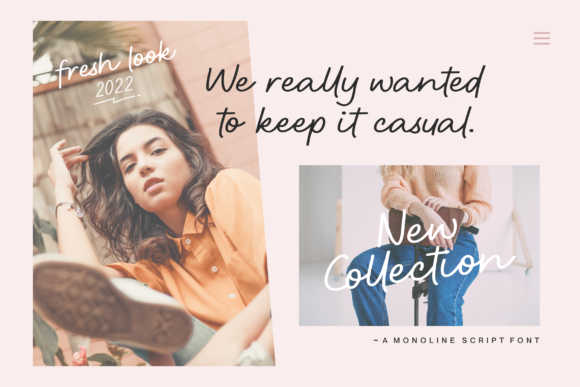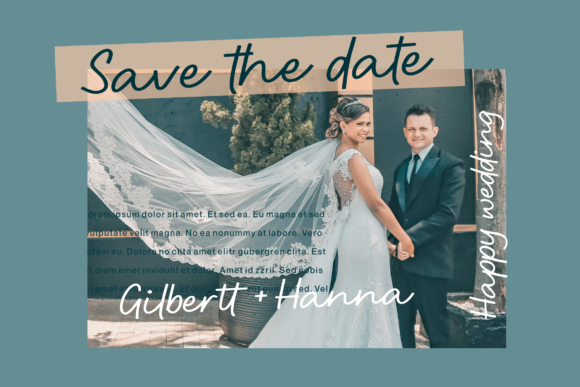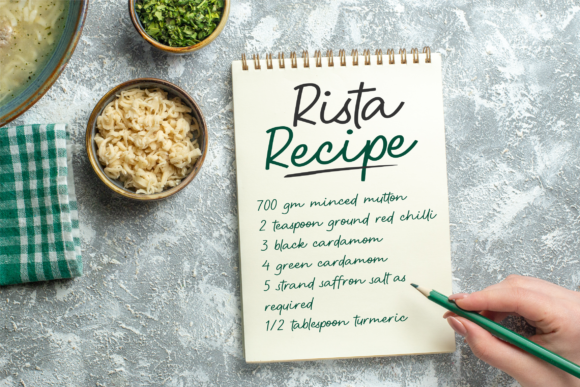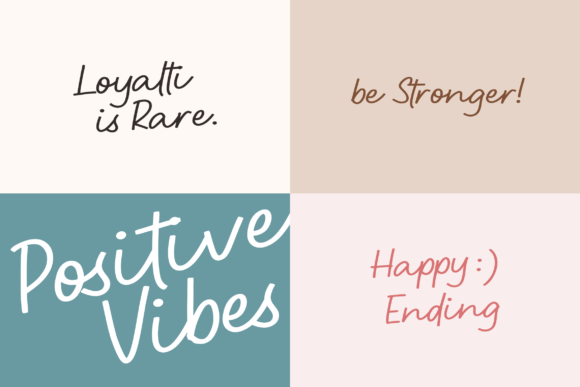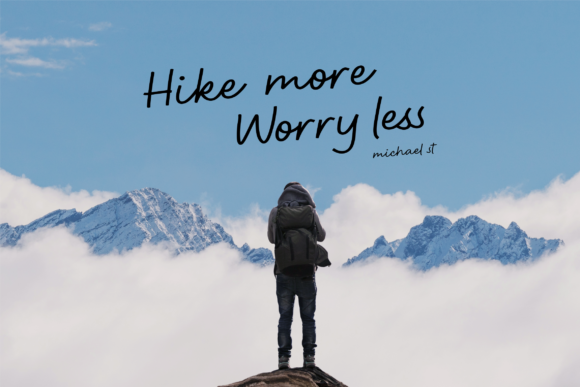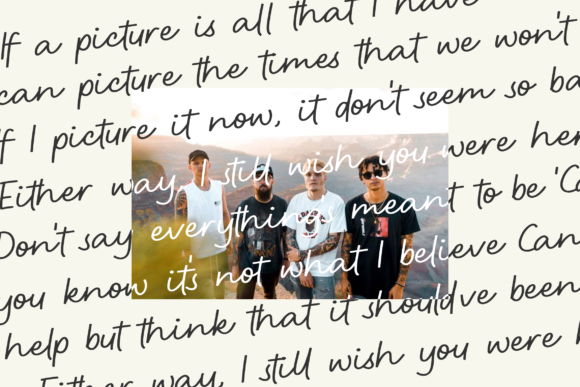
Unleash Your Creativity with Ghouline Font: A Delicate Script Font for Stunning Designs
Are you a designer or crafter looking for a unique and elegant font to elevate your creative projects? Look no further than Ghouline Font, a delicate script font that is perfect for a wide range of applications. From product packaging and branding projects to magazine covers, social media graphics, and invitations, Ghouline Font is the ideal choice for adding a touch of sophistication and whimsy to your designs.
What is Ghouline Font?
Ghouline Font is a beautiful, hand-crafted script font that features delicate lines, intricate details, and a touch of elegance. Its unique design makes it perfect for adding a personal touch to your projects, setting them apart from the crowd. Whether you’re looking to create a stunning visual identity for a brand, craft a beautiful invitation, or simply add some flair to your social media graphics, Ghouline Font is the perfect choice.
Key Features of Ghouline Font
- Delicate and Elegant Design: Ghouline Font features a delicate and elegant design that adds a touch of sophistication to any project.
- Perfect for Script-Based Designs: With its flowing lines and intricate details, Ghouline Font is perfect for script-based designs, including invitations, quotations, and more.
- Highly Versatile: Ghouline Font can be used for a wide range of applications, including product packaging, branding projects, magazine covers, social media graphics, and more.
- Easily Customizable: Ghouline Font is easily customizable, allowing you to adjust the font size, color, and style to fit your project’s needs.
Uses of Ghouline Font
Ghouline Font is a versatile font that can be used in a variety of creative projects. Here are some of the most popular uses of Ghouline Font:
- Product Packaging: Add a touch of elegance to your product packaging with Ghouline Font, perfect for luxury brands, cosmetics, and more.
- Branding Projects: Create a stunning visual identity for your brand with Ghouline Font, ideal for logos, business cards, and letterheads.
- Magazine Covers: Use Ghouline Font to create eye-catching magazine covers that grab attention and showcase your publication’s style.
- Social Media Graphics: Add a touch of whimsy to your social media graphics with Ghouline Font, perfect for Instagram posts, Facebook graphics, and more.
- Invitations: Create beautiful, custom invitations with Ghouline Font, ideal for weddings, birthday parties, and other special occasions.
Tips for Using Ghouline Font
To get the most out of Ghouline Font, here are some tips to keep in mind:
- Use it Sparingly: Ghouline Font is a delicate font, so use it sparingly to avoid overwhelming your design.
- Pair it with Bold Fonts: Pair Ghouline Font with bold fonts to create a striking contrast and add visual interest to your design.
- Experiment with Colors: Experiment with different colors to find the perfect match for your design and make Ghouline Font pop.
- Pay Attention to Spacing: Pay attention to spacing and kerning to ensure that Ghouline Font looks elegant and refined.
Ghouline Font is a beautiful, delicate script font that is perfect for designers and crafters looking to add a touch of elegance and whimsy to their creative projects. With its unique design, versatility, and ease of use, Ghouline Font is an excellent choice for a wide range of applications. Whether you’re looking to create stunning product packaging, branding projects, magazine covers, social media graphics, or invitations, Ghouline Font is the perfect choice. So why wait? Download Ghouline Font today and unleash your creativity!